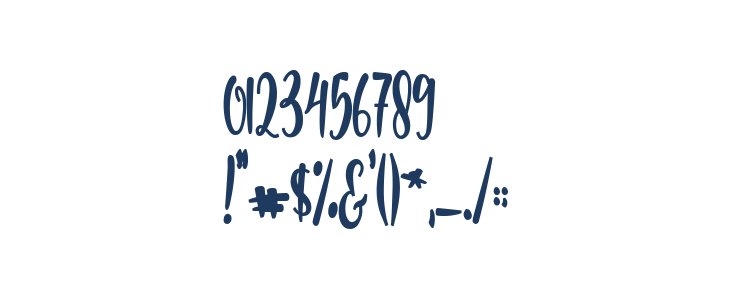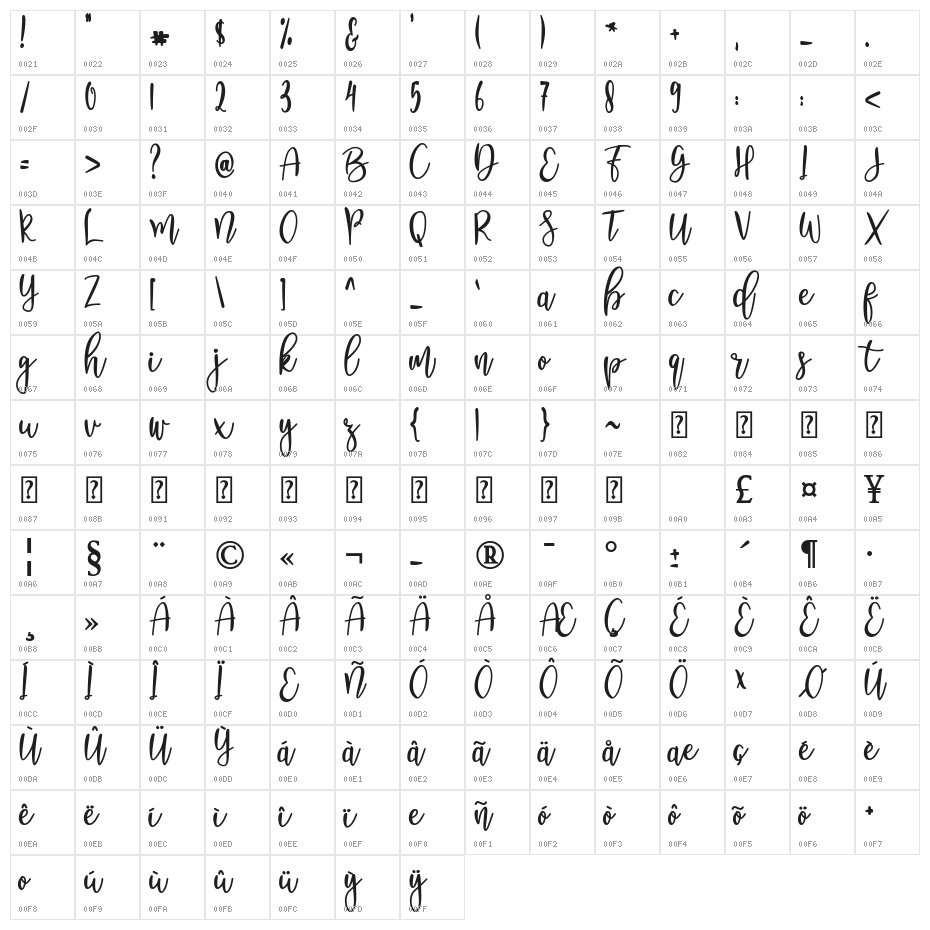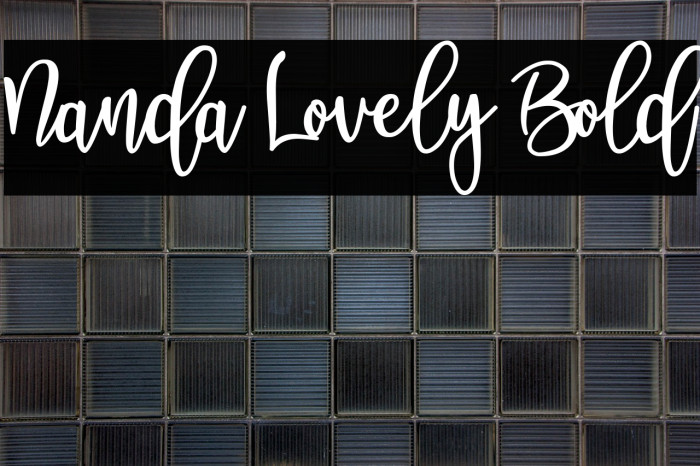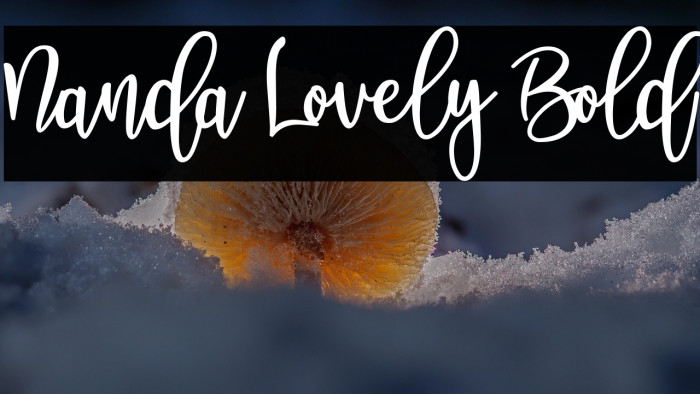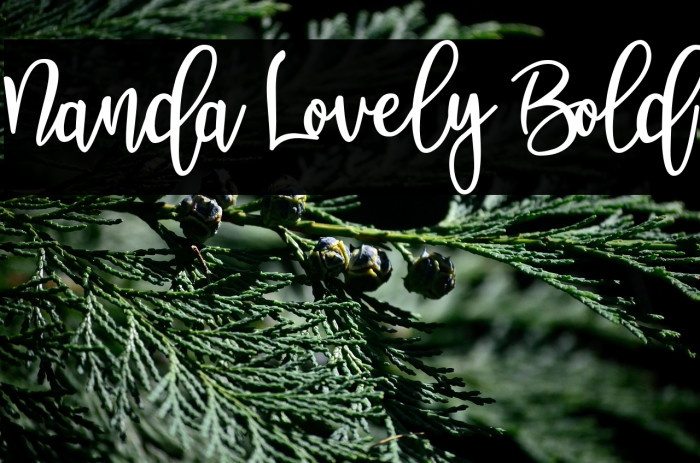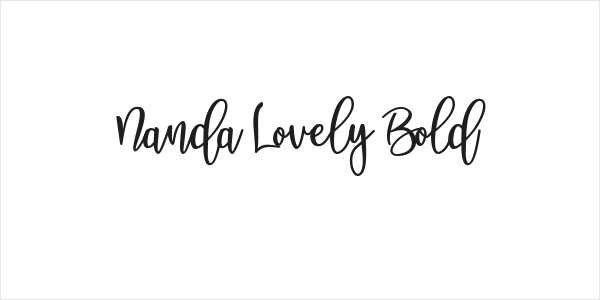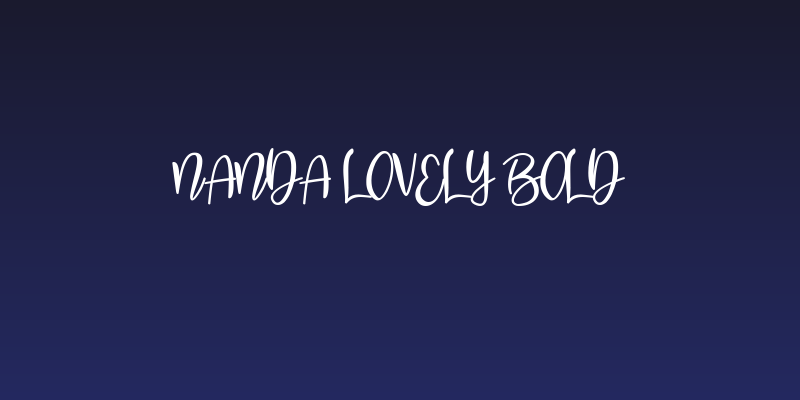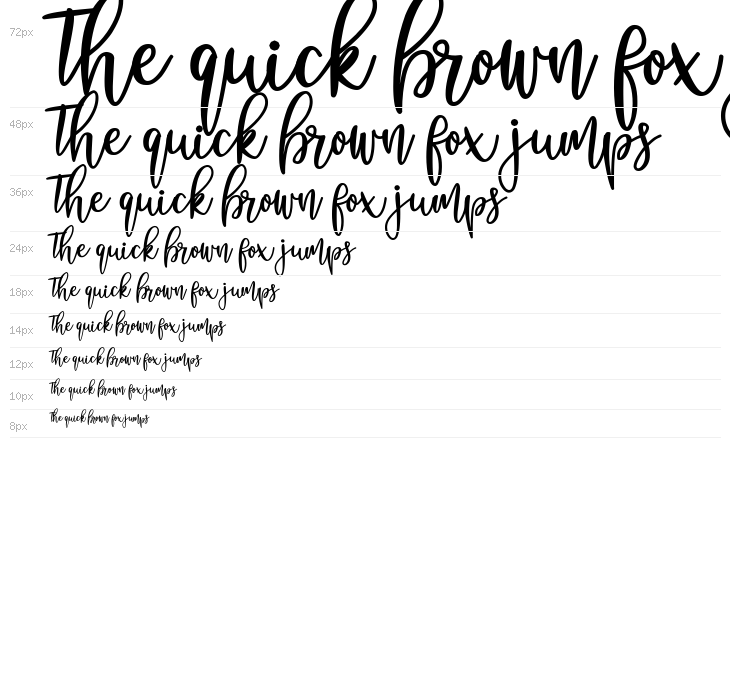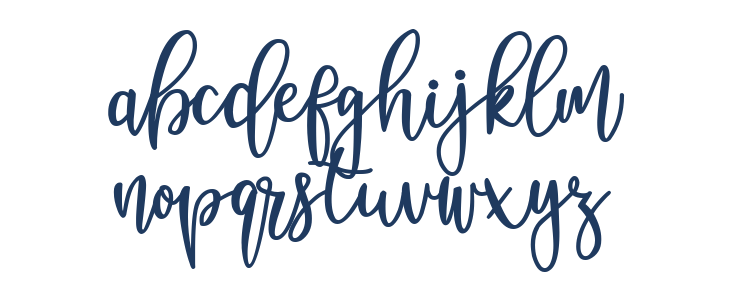
Nanda Lovely Bold Font
Nanda Lovely Bold Description
This font features a lively and flowing script style, characterized by its bold and expressive strokes. The letters are interconnected, creating a seamless and dynamic appearance. The uppercase characters are tall and elegant, while the lowercase letters maintain a consistent rhythm with playful loops and curves. Numbers and special characters are designed to match the overall aesthetic, adding a touch of whimsy and charm. The font's boldness ensures visibility and impact, making it suitable for eye-catching designs.